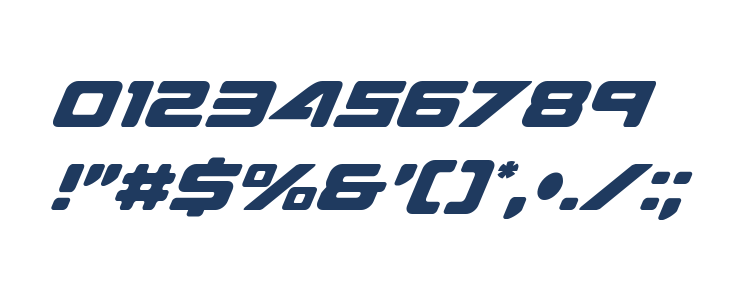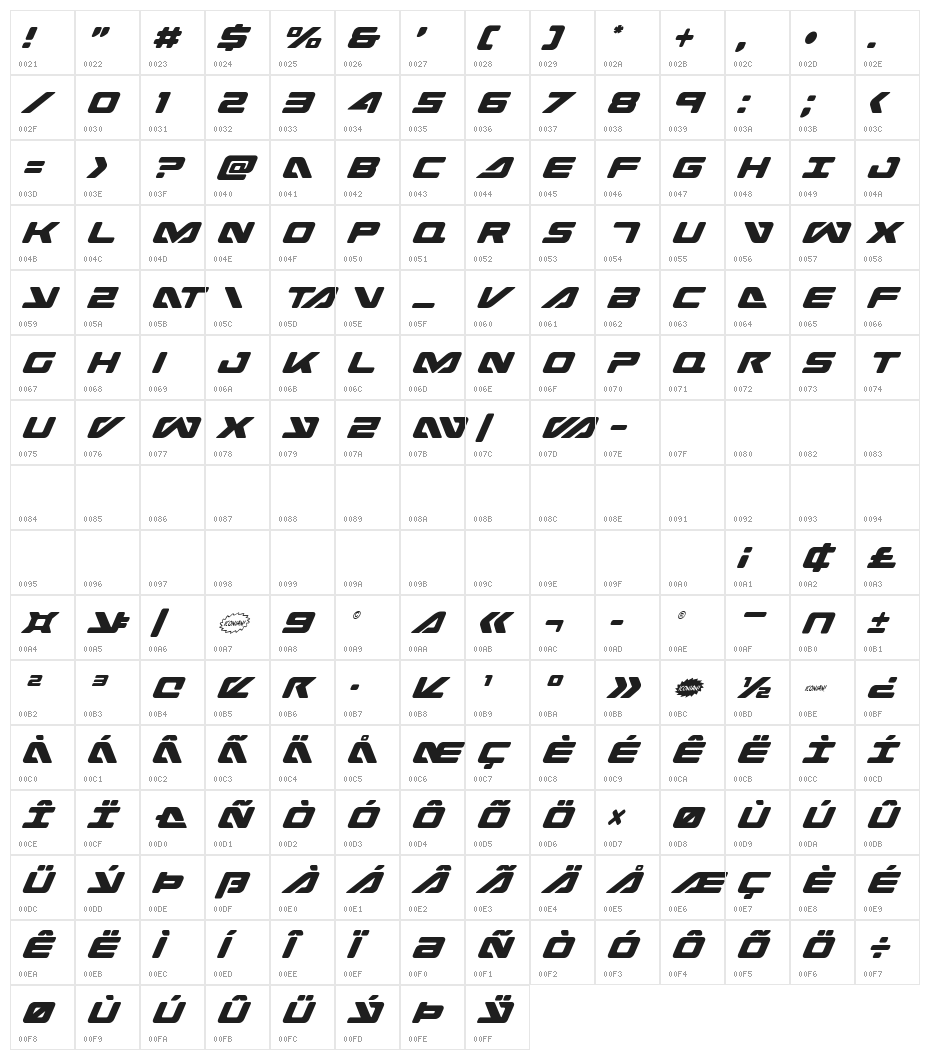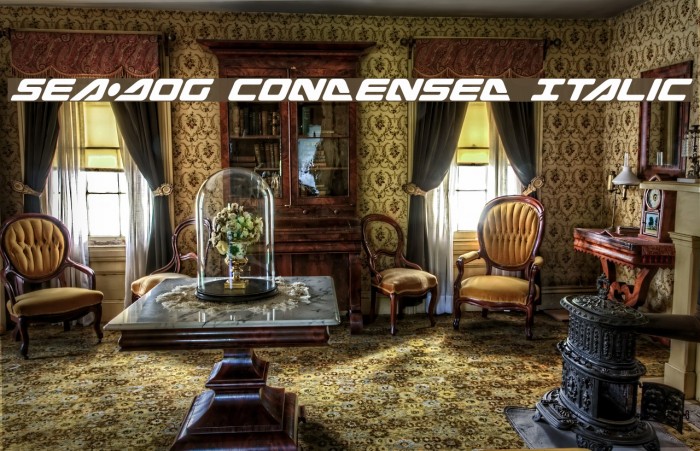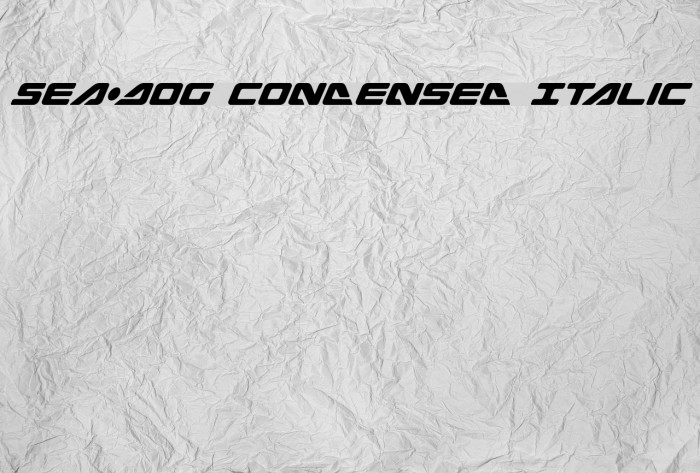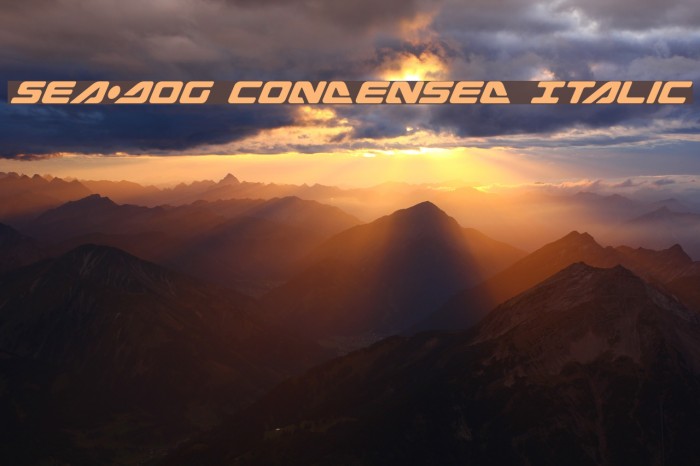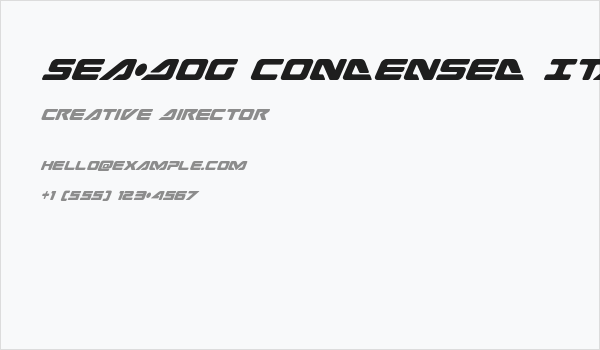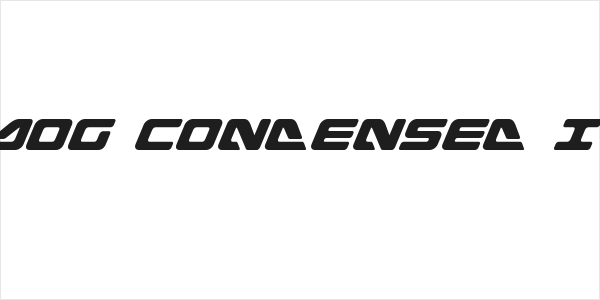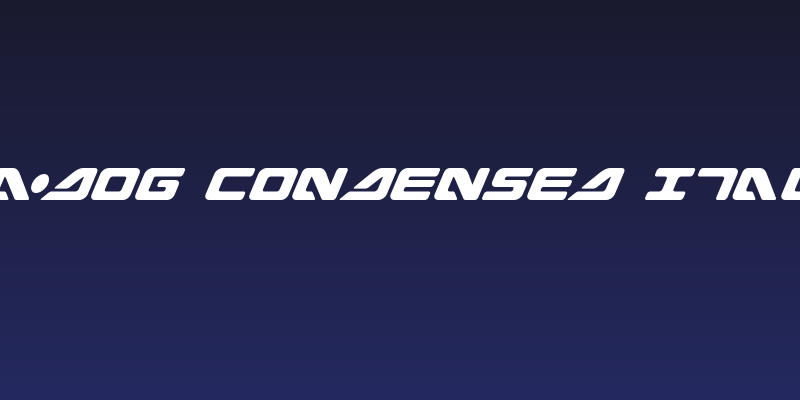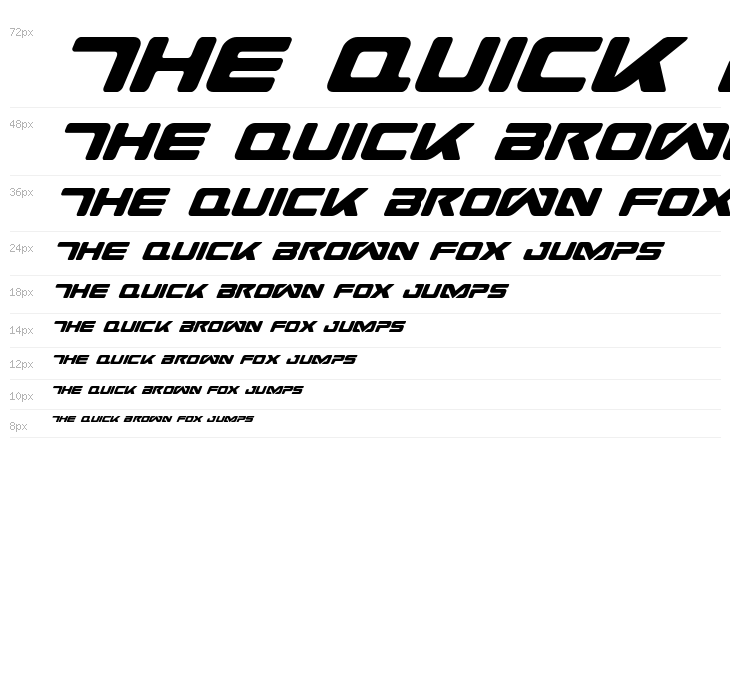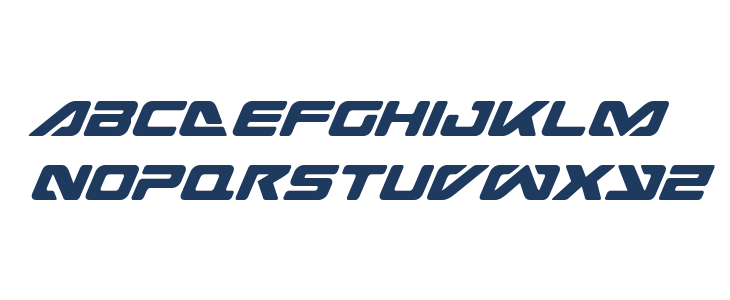
Sea-Dog Condensed Italic Font
Sea-Dog Condensed Italic Description
This font features a bold and dynamic design with a futuristic flair. The characters are condensed and italicized, giving them a sleek, streamlined appearance. The angular cuts and sharp edges contribute to a sense of motion and speed, making it ideal for projects that require a modern and energetic look. The uniform stroke width and consistent character height ensure readability, while the unique styling adds a distinctive touch. The font includes a full set of uppercase and lowercase letters, numbers, and a variety of special characters, making it versatile for various applications.
Use CaseLogos, Headlines, Branding
Proposed ProjectsIdeal for branding, sports team logos, automotive designs, and technology-related projects.